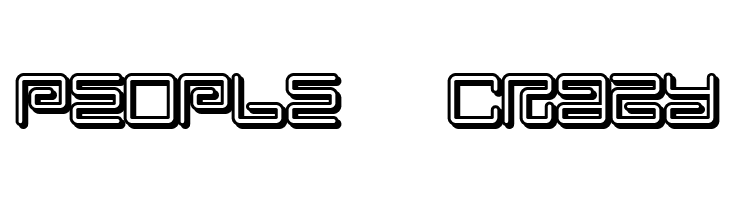
Illumino Outline Font
- Font: Illumino Outline
- Weight: Outline
A futuristic, geometric font with bold, interconnected lines and a three-dimensional appearance.